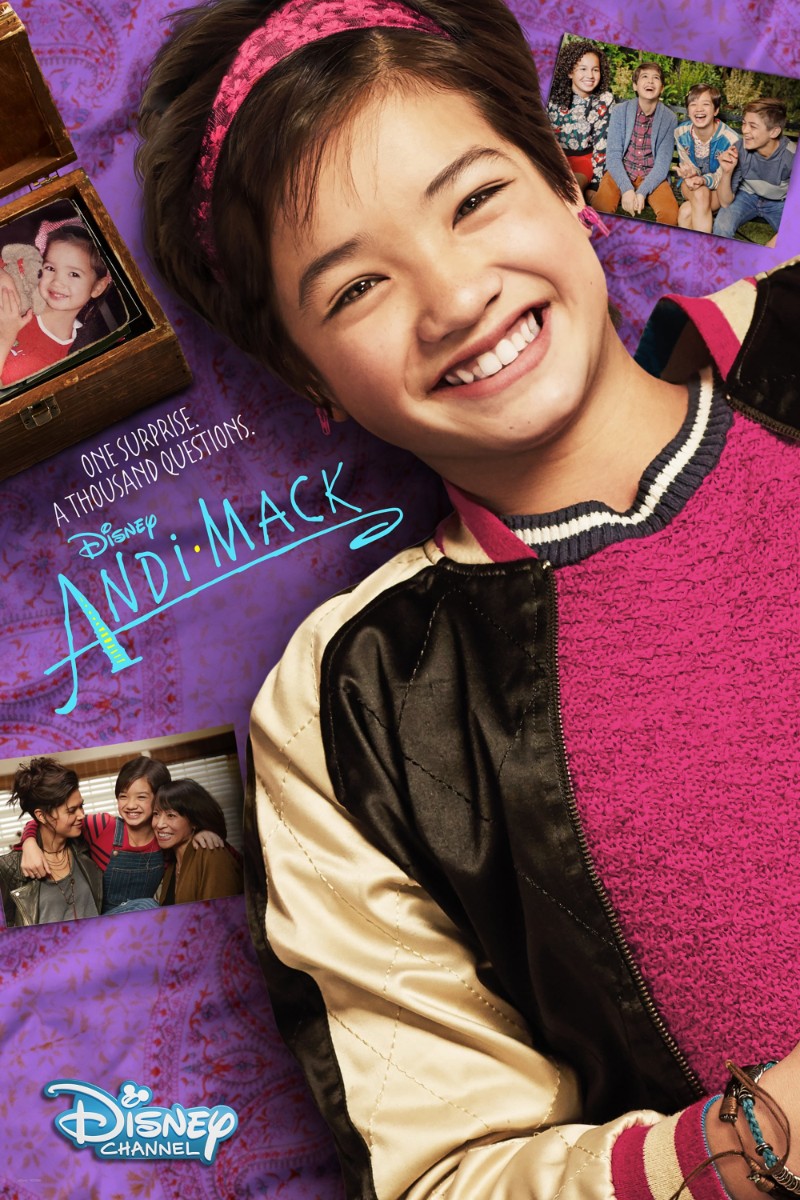
Andi Mack Font
ComedyAndi Mack is a coming-of-age Disney Channel series that follows the life of a 13-year-old girl as she discovers new family secrets and navigates the ups and downs of adolescence.
The Andi Mack series title was created using Giacometti Letter, a playful and handwritten-style font designed by Sine Bergmann and Leonore Poth. The tagline above the title is set in ITC Aram, designed by Jana Nikolic.